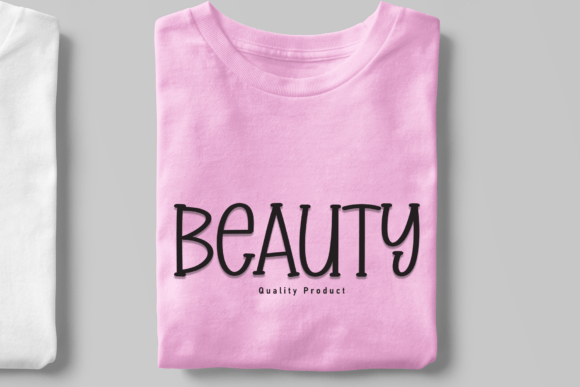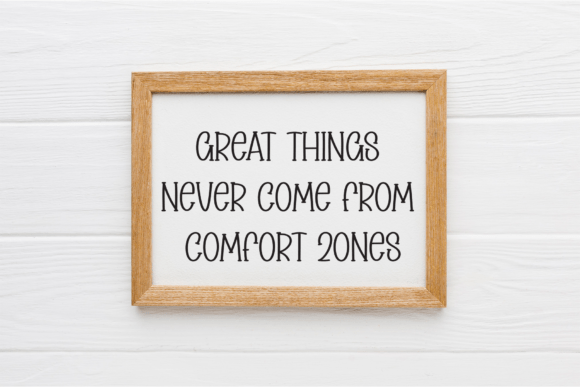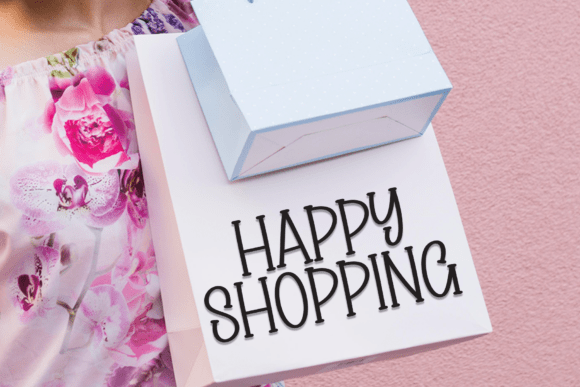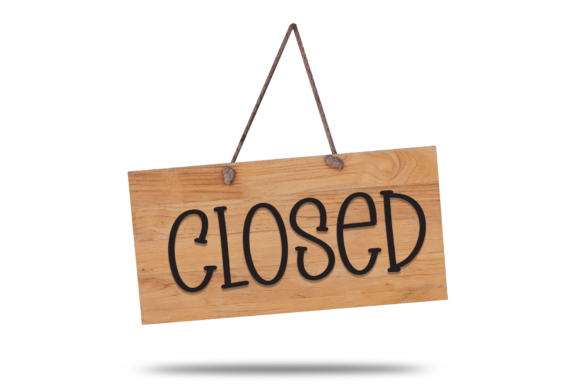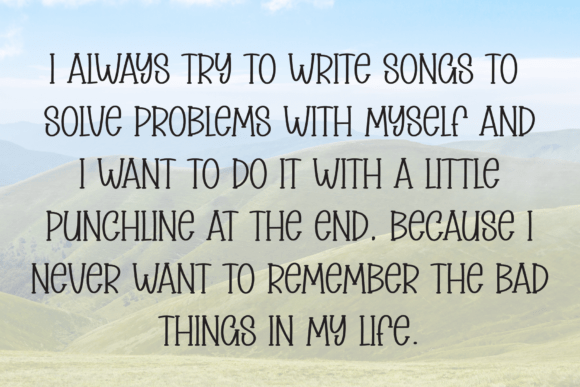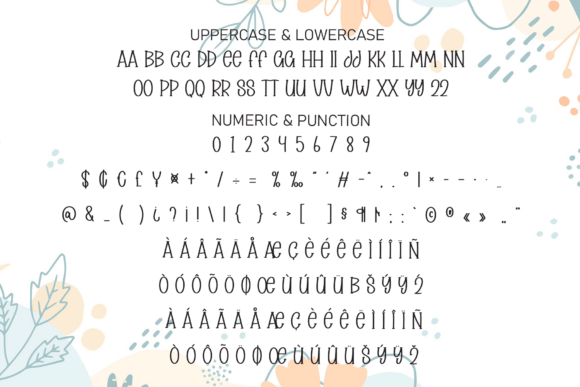
Introducing Background Font: The Perfect Blend of Whimsy and Charm
Have you ever stared at a blank page, struggling to find the perfect font to capture the essence of your design? You envision something playful, yet elegant, that speaks directly to your audience’s heart. For designers like you, finding that perfect font can be a challenge – until now.
Meet Background Font, a delightful, handwritten display font designed to exude charm and friendliness. This pleasantly cute and enjoyable font is perfect for crafting wedding invitations, cards, or any design that calls for a sprinkle of cheerful element. As a designer, you’ll love Background Font for its unique ability to add a playful touch to your creations.
Whether you’re a seasoned pro or just starting out, Background Font is a valuable addition to your design toolkit. Its charming personality and versatility make it an ideal choice for a wide range of projects, from personal to professional.
Background Font Key Features
Designer Review: Background Font
Overall, I’d say Background Font has some great features, but it’s not without its limitations.